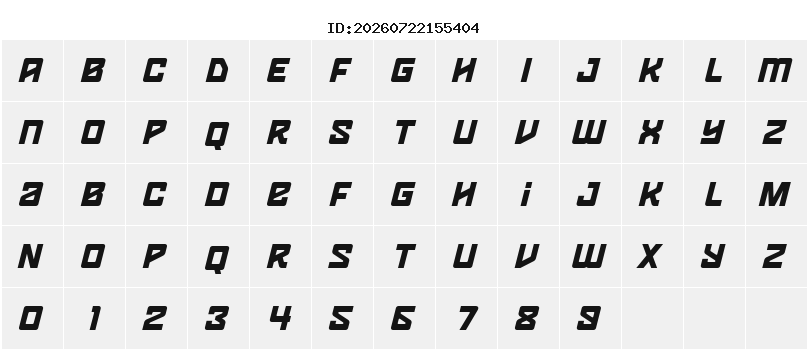
HOUSE3009 Preview
About HOUSE3009.ttf
HOUSE3009.ttf is a modern, elegant sans-serif font designed for ultimate readability and visual harmony. Perfect for branding, headlines, web design, and print materials.